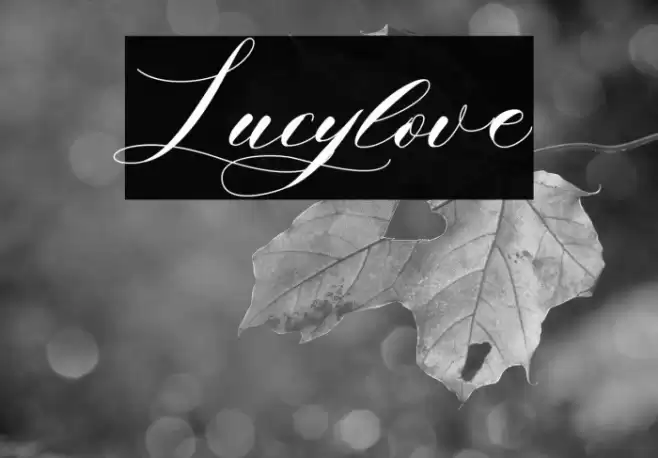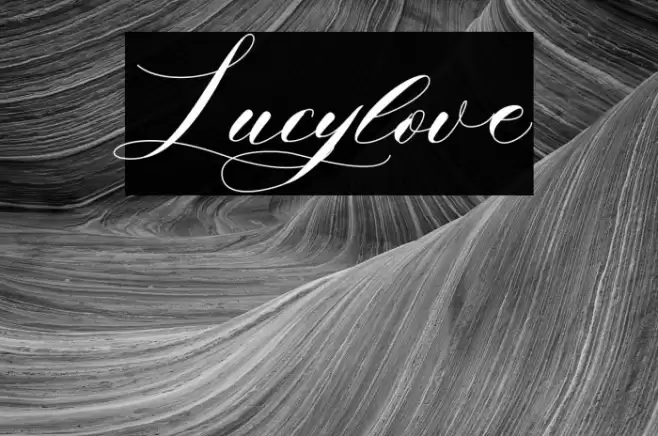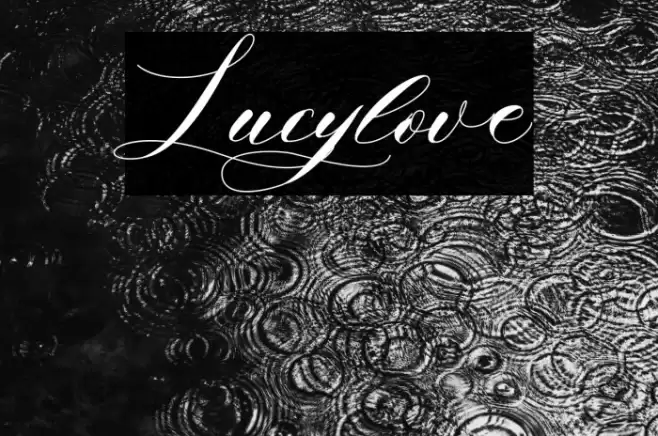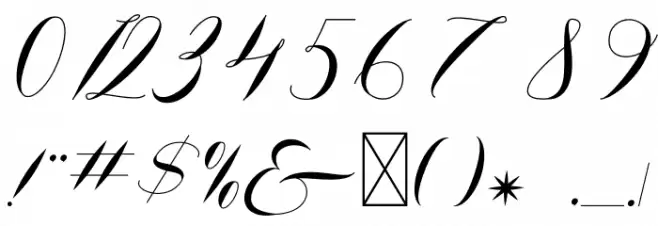
Lucylove Font
Lucylove Description
This elegant script font features graceful, flowing lines with high contrast between thick and thin strokes. The uppercase letters are ornate, with intricate swashes and flourishes that add a touch of sophistication. The lowercase letters maintain a smooth, connected style, enhancing readability while retaining an artistic flair. Numbers and special characters are designed with the same attention to detail, making them suitable for decorative purposes. The overall design exudes a sense of luxury and refinement, ideal for projects that require a touch of elegance.
An elegant script font with high contrast and ornate flourishes from Regular fonts.
- Proposed Projects: Ideal for wedding invitations, luxury branding, elegant stationery, and decorative headlines.
- Overall Style: Elegant
- Use Case: Headlines, Invitations, Branding